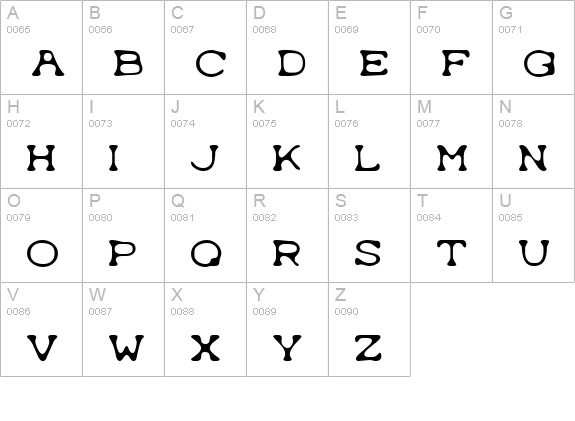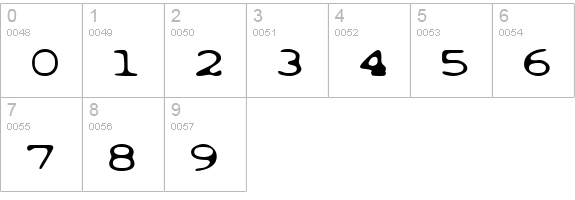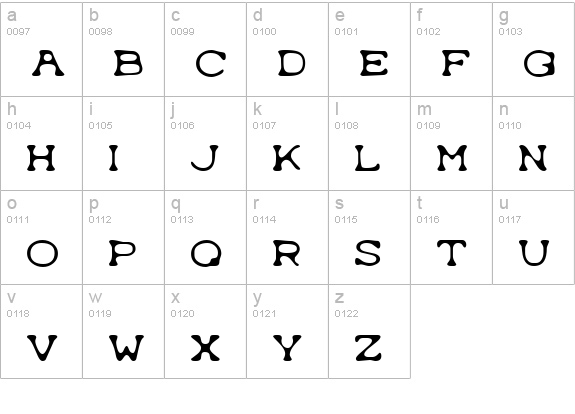
Typewrong Font Details
Introducing Typewrong, a captivating and unique font that is sure to make a bold statement in any design project. With its edgy and unconventional aesthetic, Typewrong brings a refreshing twist to traditional typography. This font embodies a perfect balance between elegance and rebellion, making it ideal for those who want to break free from the ordinary and explore the boundaries of creativity. Typewrong is not just another font; it is a true work of art meticulously crafted by talented designers. Every letter is infused with personality, featuring unexpected angles and rebellious strokes that create an intriguing visual experience. Its unconventional design draws the eye, leaving a lasting impression on anyone who encounters it. One of the most remarkable aspects of Typewrong is its versatility. Whether you're designing a logo, a poster, a website, or even a tattoo, this font will effortlessly adapt to any project, adding an air of sophistication and originality. Its versatility extends to various design styles, ranging from modern and minimalist to vintage and retro. No matter the aesthetic you're aiming for, Typewrong will elevate your design to new heights. And the best part? Typewrong is freely available to download at FontsMarket.com. This means that you can enjoy the exceptional quality and artistic flair of this font without any cost. FontsMarket.com is a reputable platform that offers a wide range of fonts, ensuring that designers, artists, and enthusiasts alike have access to the finest typography resources. So, why settle for ordinary when you can embrace the extraordinary with Typewrong? Download this captivating font today and let your creative spirit soar. Break free from the limitations of traditional typography and create designs that leave a lasting impression. Typewrong is here to redefine the boundaries of visual expression, and it's yours for free at FontsMarket.com.